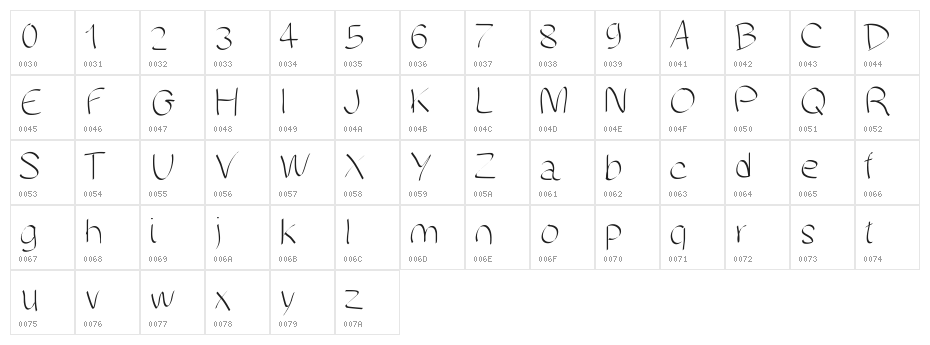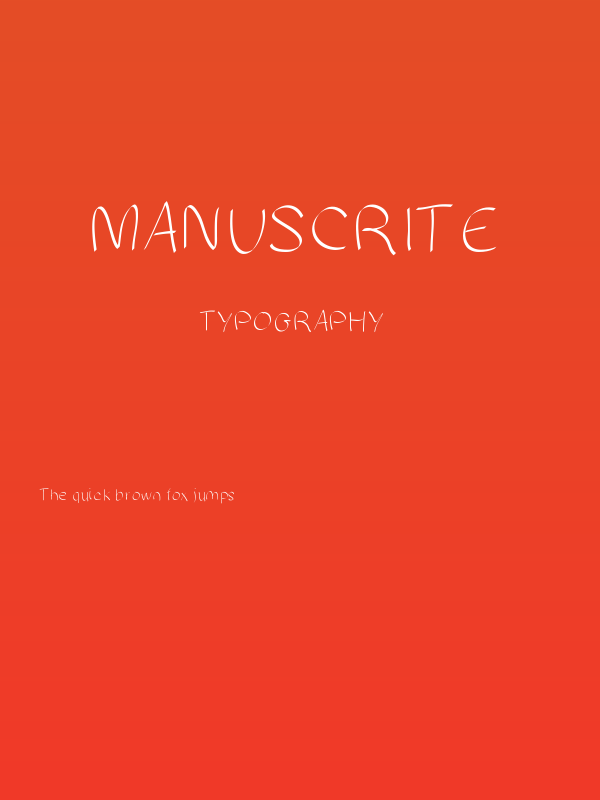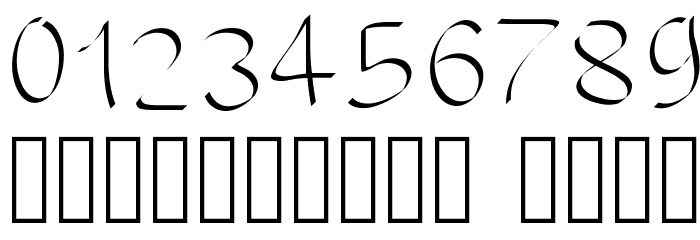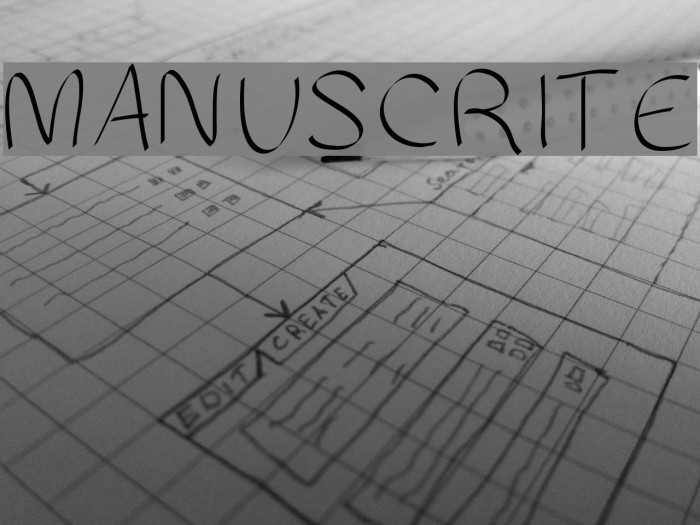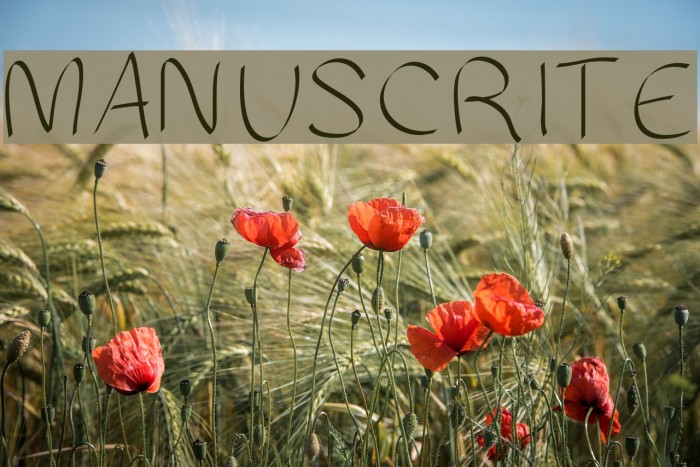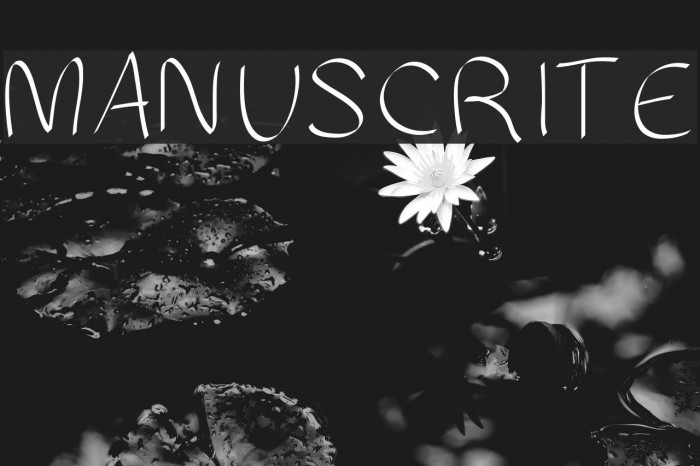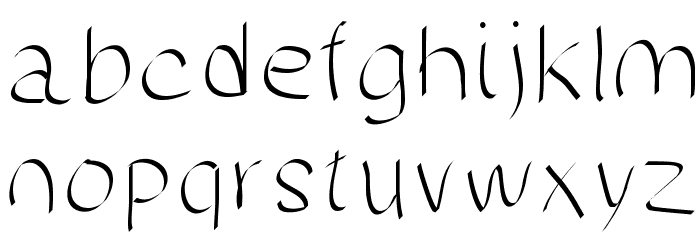
MANUSCRITE Font
MANUSCRITE Description
This font exhibits a handwritten style with a fluid and organic appearance, reminiscent of calligraphy. The strokes are varied, with some letters featuring elegant curves and others having sharp, angular edges. The uppercase letters are bold and expressive, while the lowercase letters maintain a consistent flow, enhancing readability. The numerals are distinct and maintain the same stylistic elements, ensuring uniformity across the character set. The special characters are creatively designed, fitting seamlessly with the overall aesthetic. This font captures a sense of personal touch and artistic flair, making it suitable for projects that require a unique and personal feel.
MANUSCRITE UPPERCASE
MANUSCRITE LOWERCASE
MANUSCRITE OTHER CHARS
| Overall Style | Artistic |
| Proposed Projects | Ideal for wedding invitations, personal branding, artistic projects, and creative writing pieces. |